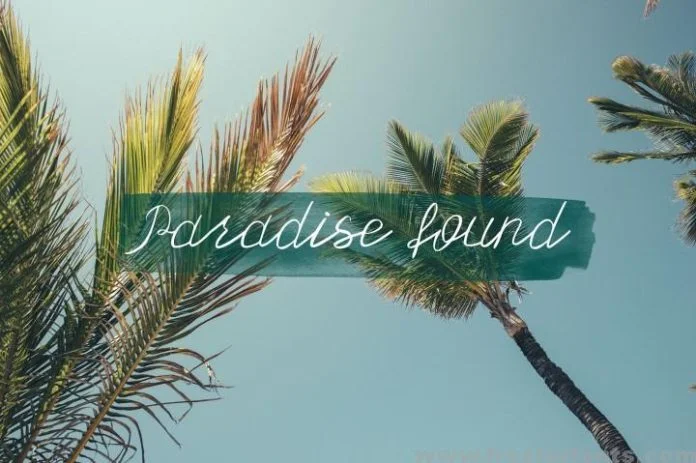
Olster Script Font Free Download
Olster Script Font is perfect for elegant calligraphy projects, sophisticated wedding invitations, luxury brand signatures, refined stationery design, graceful beauty salon branding, upscale restaurant menus, personal signature creation, premium greeting cards, intimate social media quotes, and distinguished event announcements.
Olster Script Font is exciting because it embodies refined elegance and sophisticated grace through flowing calligraphic letterforms that convey luxury, femininity, and artistic excellence with timeless appeal. This beautifully crafted script combines traditional calligraphy mastery with contemporary sophistication, making it perfect for brands that want to communicate premium quality, personal attention, and elegant refinement that distinguishes luxury experiences.
The Olster Script Font family includes graceful script weights with elegant connecting strokes, featuring sophisticated alternate characters and decorative swashes. The font showcases refined calligraphic details, luxury-inspired proportions, and elegant character variations that create a comprehensive typographic system for premium and sophisticated brand applications.
Olster Script Font Free Download offers designers access to premium calligraphic typography that brings authentic elegant sophistication to contemporary luxury design projects. This masterfully executed typeface has been developed to capture the artistry and refinement of traditional calligraphy while ensuring optimal performance in modern premium applications. The font's graceful character and sophisticated appeal make it ideal for luxury service providers and high-end brands.
The calligraphic sophistication of Olster Script Font makes it an invaluable resource for wedding professionals, luxury retailers, and premium service providers that need typography capable of communicating elegant refinement and sophisticated taste. The font's graceful character helps establish immediate associations with quality, artistry, and luxury positioning that appeal to discerning clients seeking exceptional elegance and personalized attention.
Wedding planners, luxury spas, and high-end fashion boutiques consistently choose Olster Script Font for its ability to convey calligraphic elegance and sophisticated refinement through typography. The font excels in applications where establishing luxury credibility and elegant appeal are essential to brand positioning, making it particularly effective for premium services, luxury goods, and elegant celebration brands targeting sophisticated consumers.
This font's comprehensive character set includes elegantly-styled letterforms with flowing connections, refined numerals, graceful punctuation marks, and sophisticated symbols that support authentic luxury calligraphy composition. The consistent elegant styling maintains the sophisticated refinement theme throughout all characters while ensuring professional readability across all luxury and elegant design projects requiring Olster Script Font Free Download functionality.